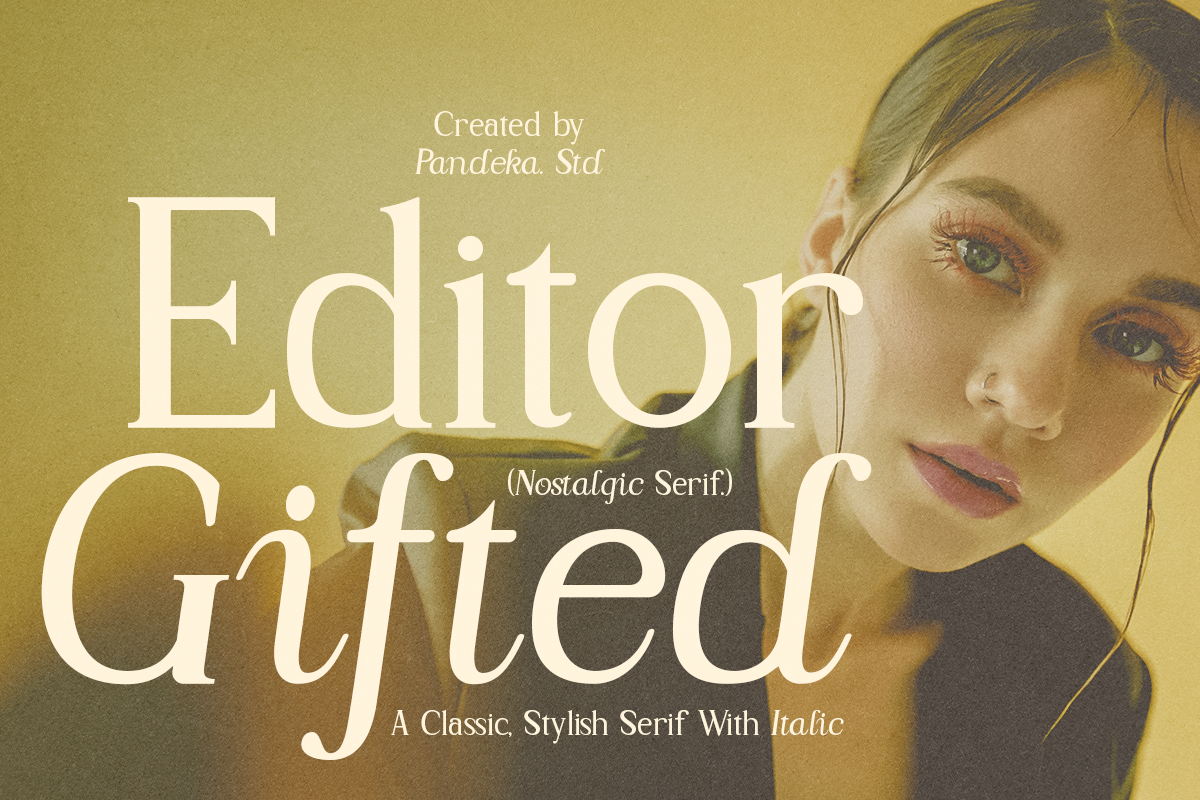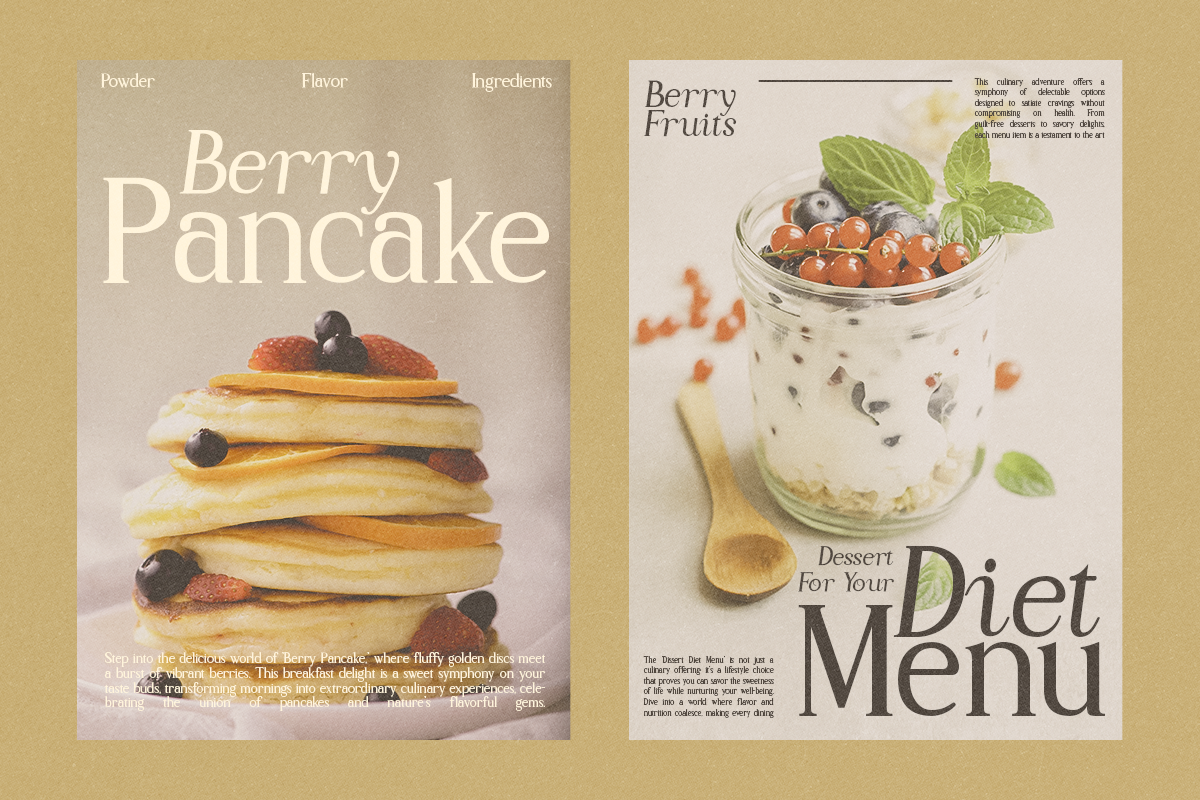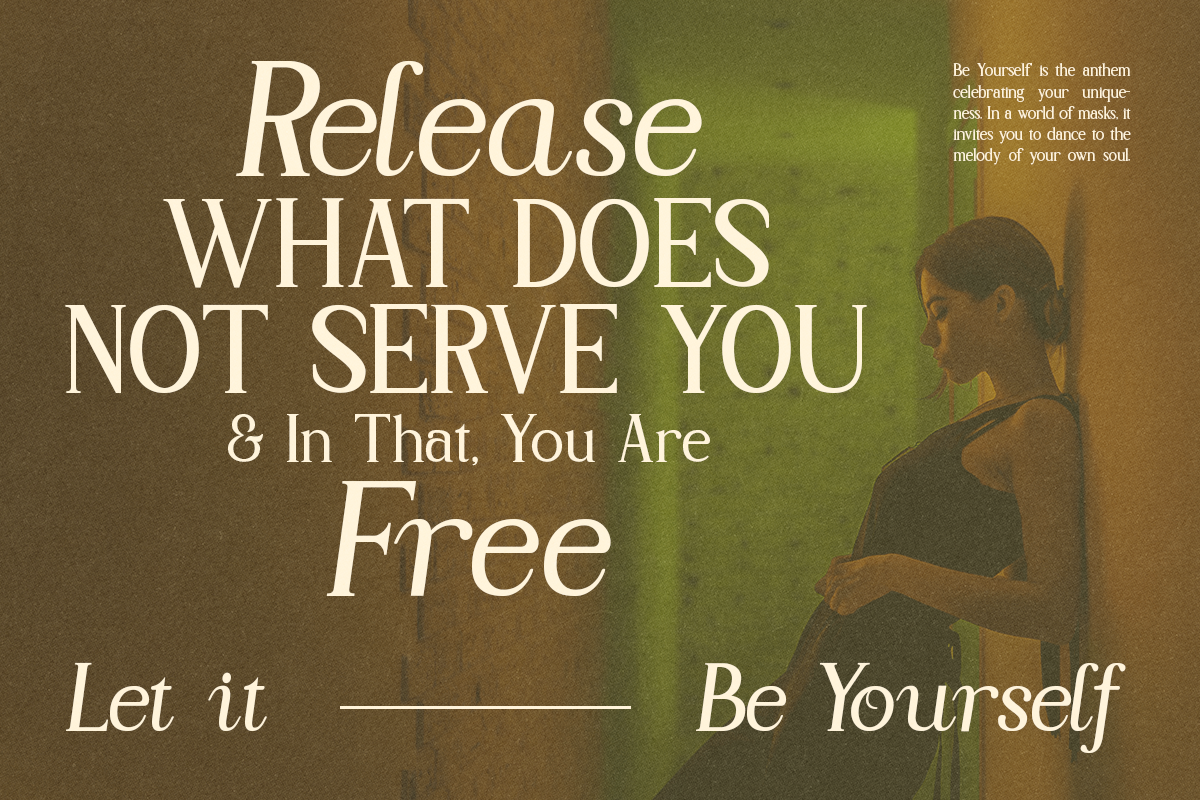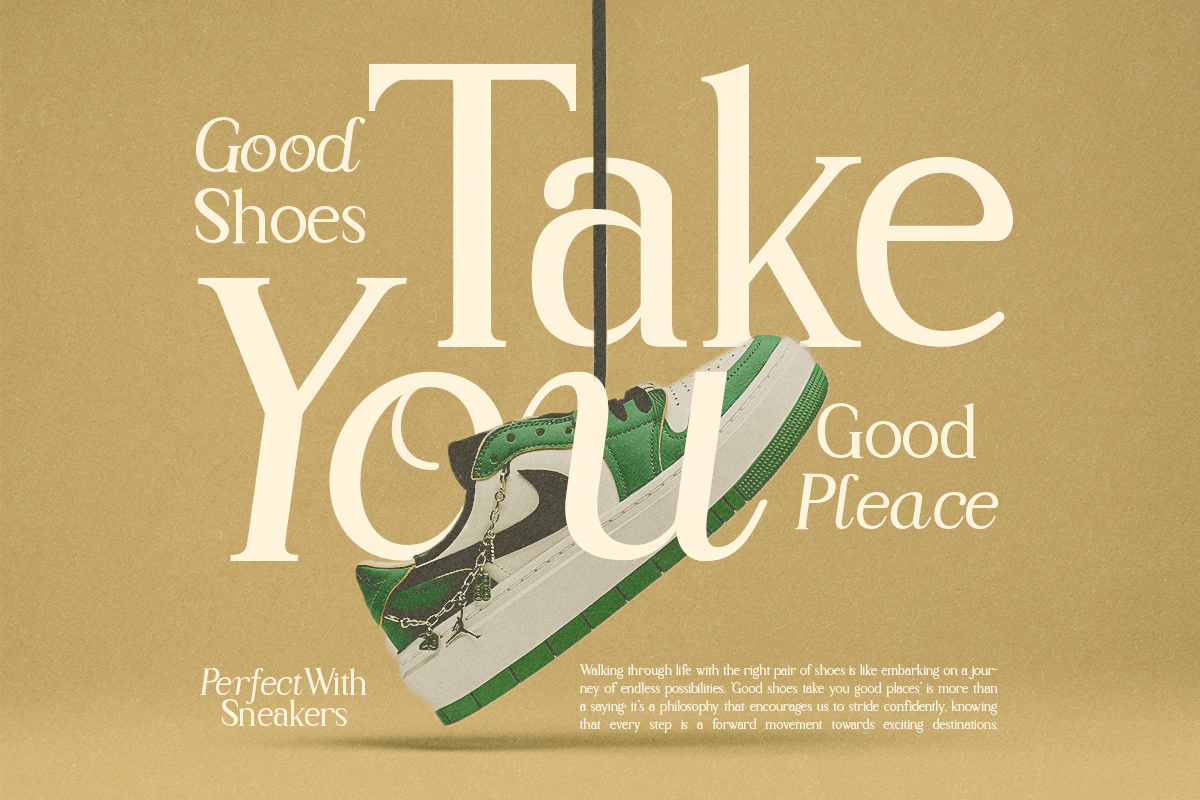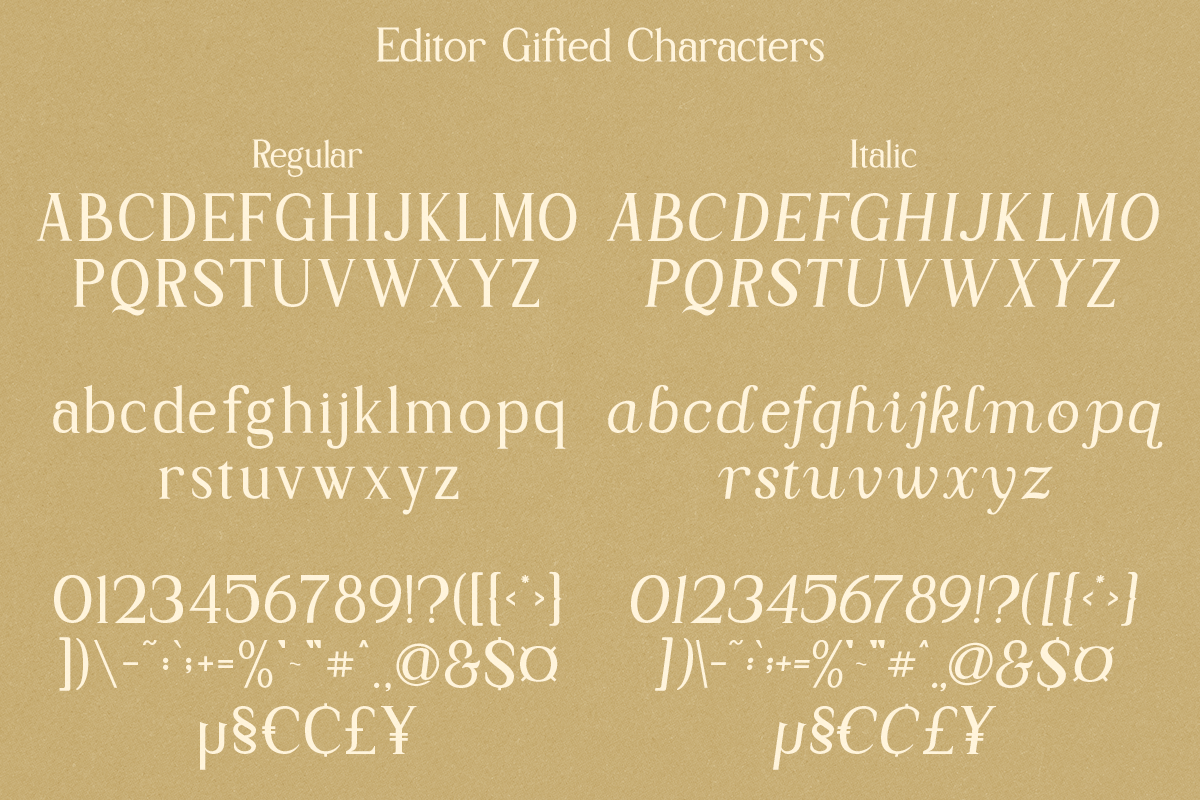
Editor Gifted - Nineties Font
Say hello to the new classic nineties retro font, Editor Gifted!
Editor Gifted - A classic nineties retro with a complementary italic version. In the italic family, we make it different from the regular and make a shape with a unique uppercase so it looks more classic, retro but a little modern
We've also been loving combining the regular and italic, especially for logos and heading :D
- Regular and Italic
- Letters, numbers, symbols, and punctuation